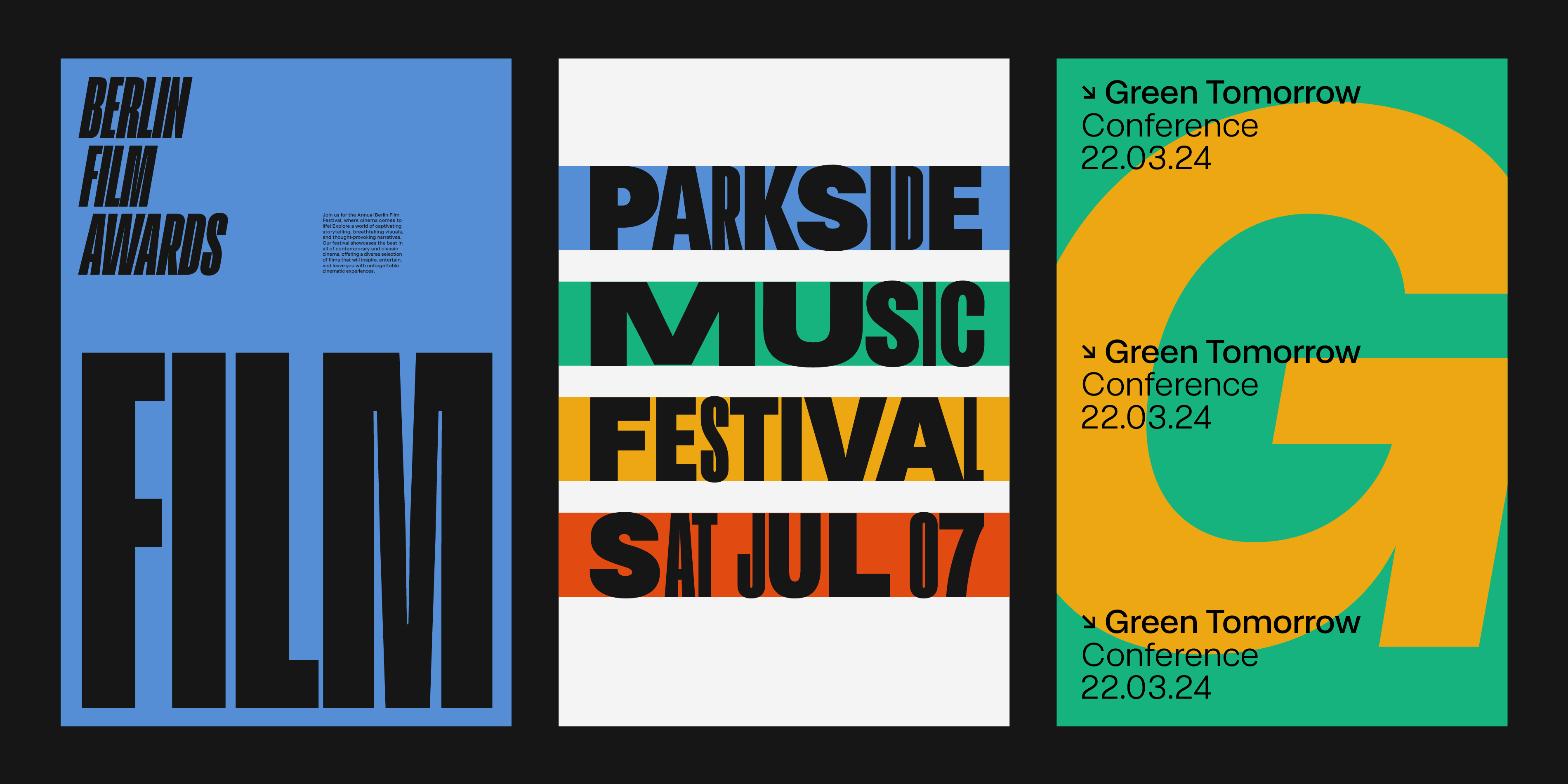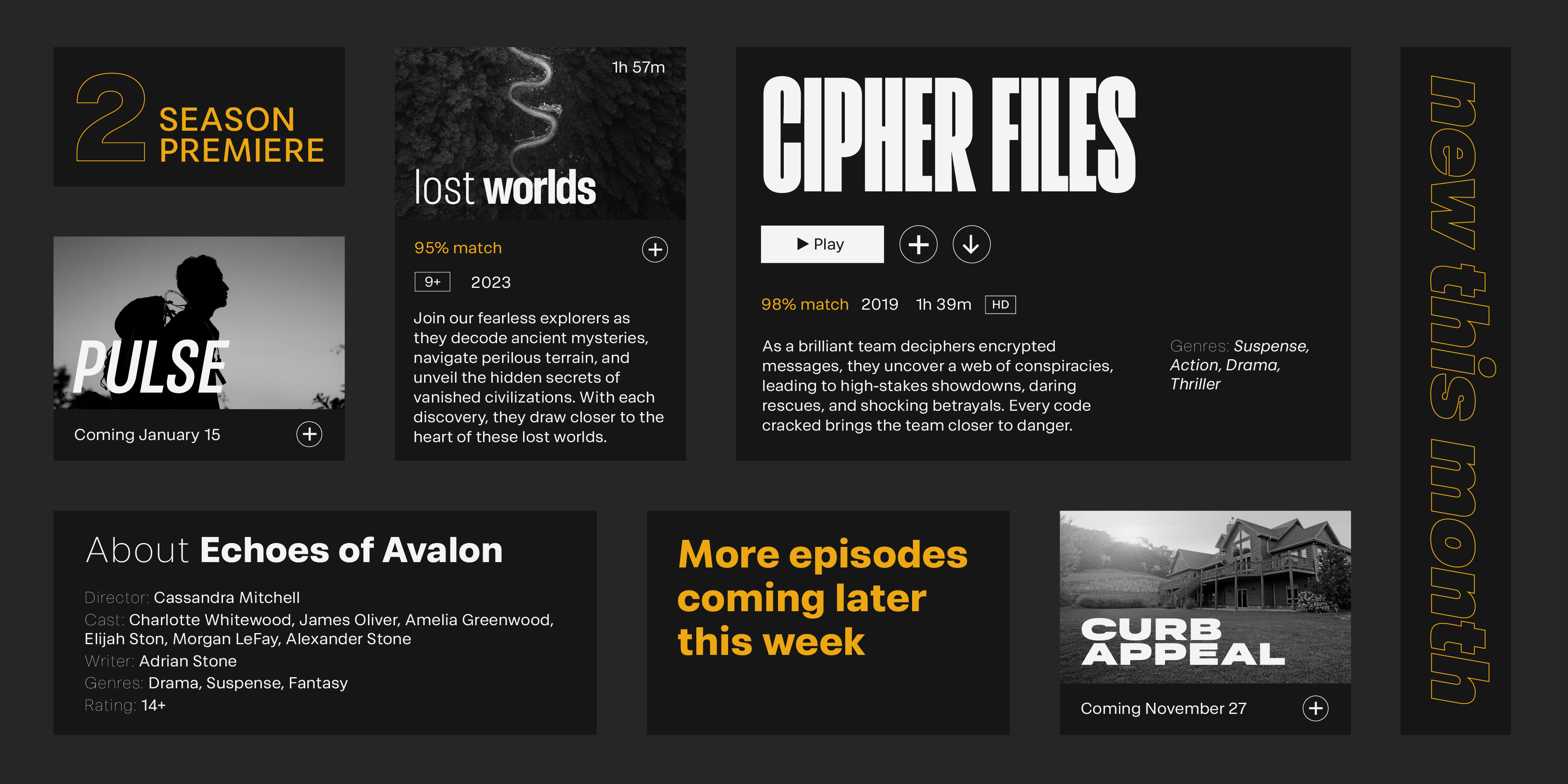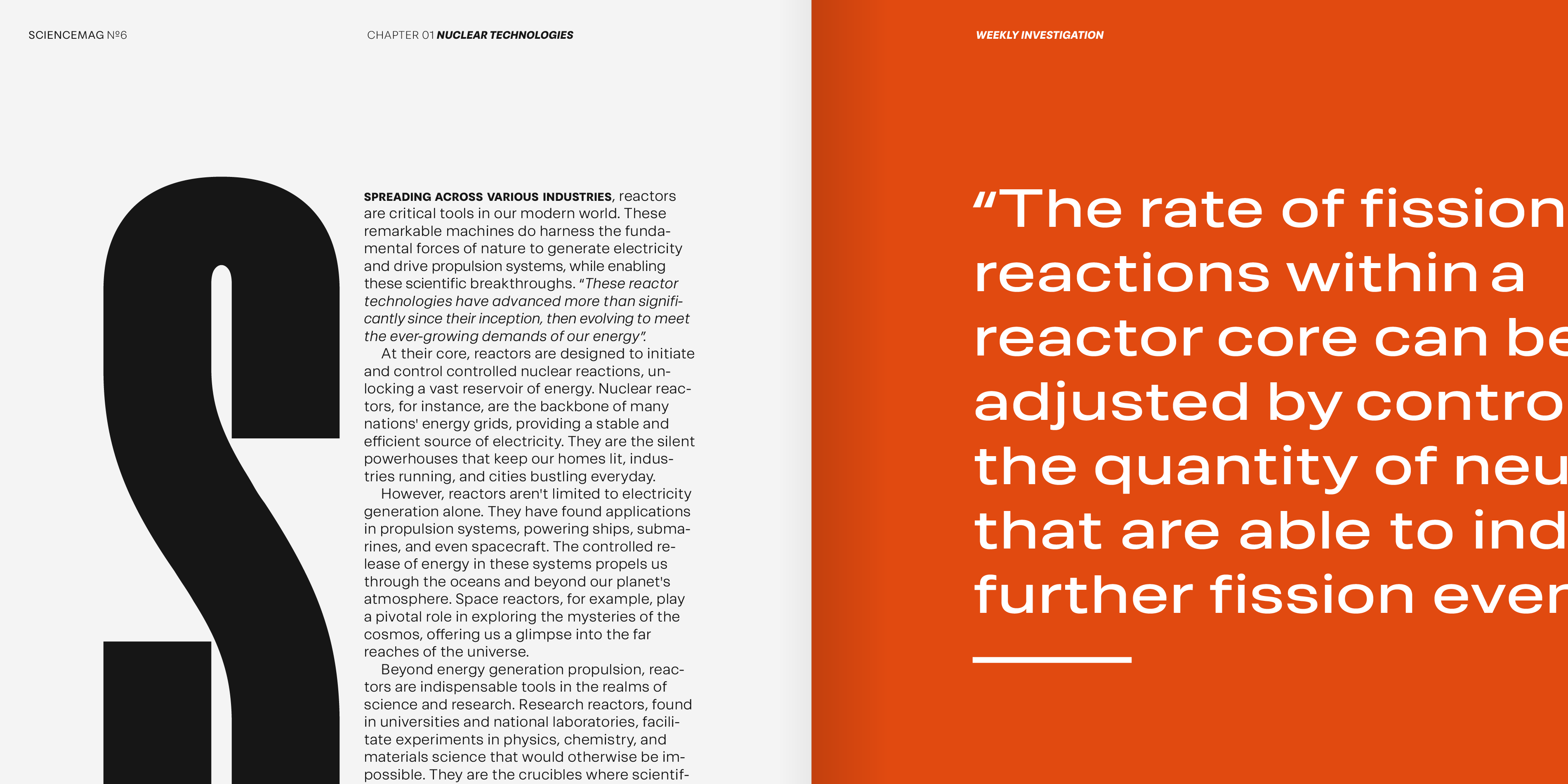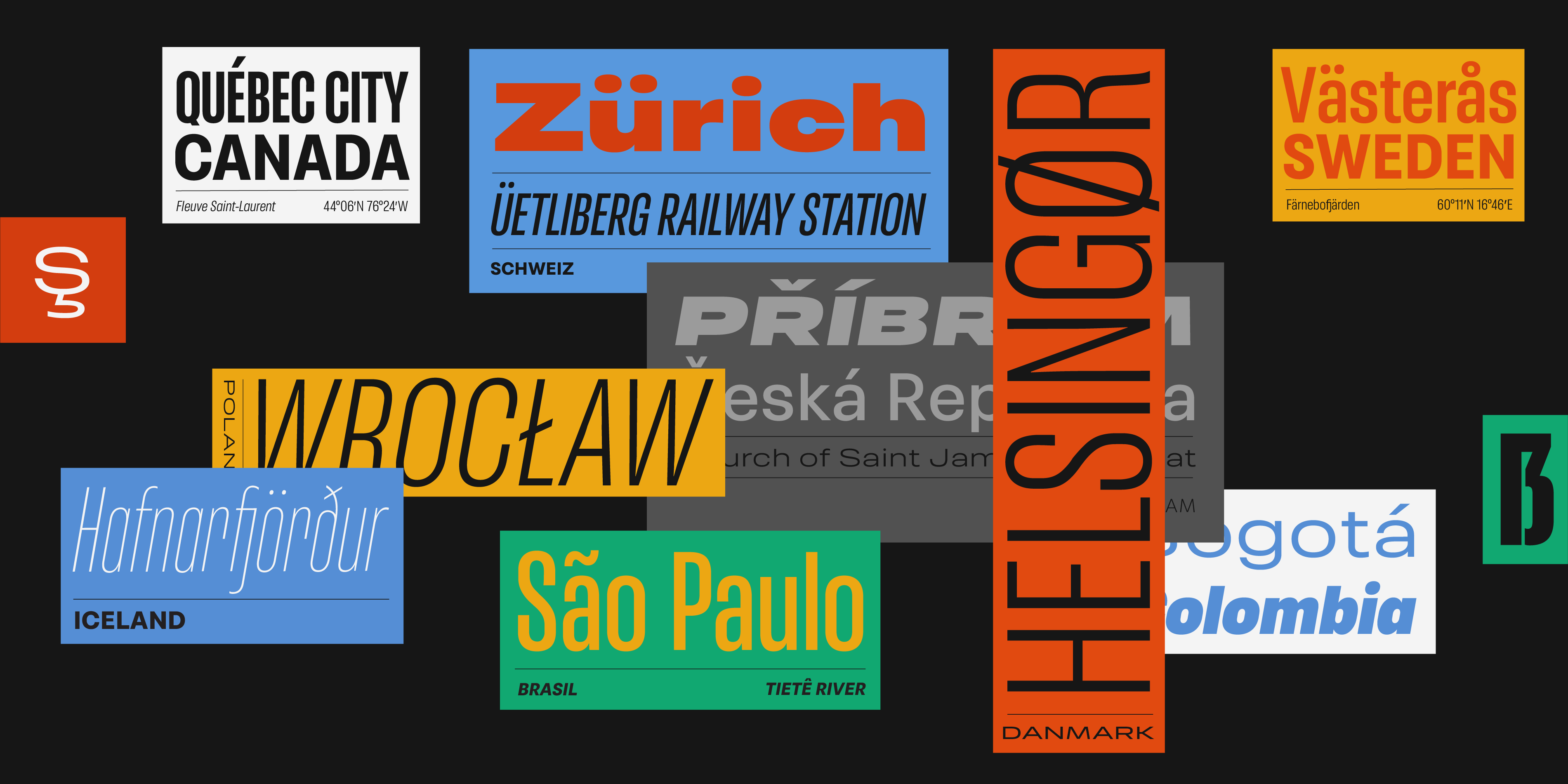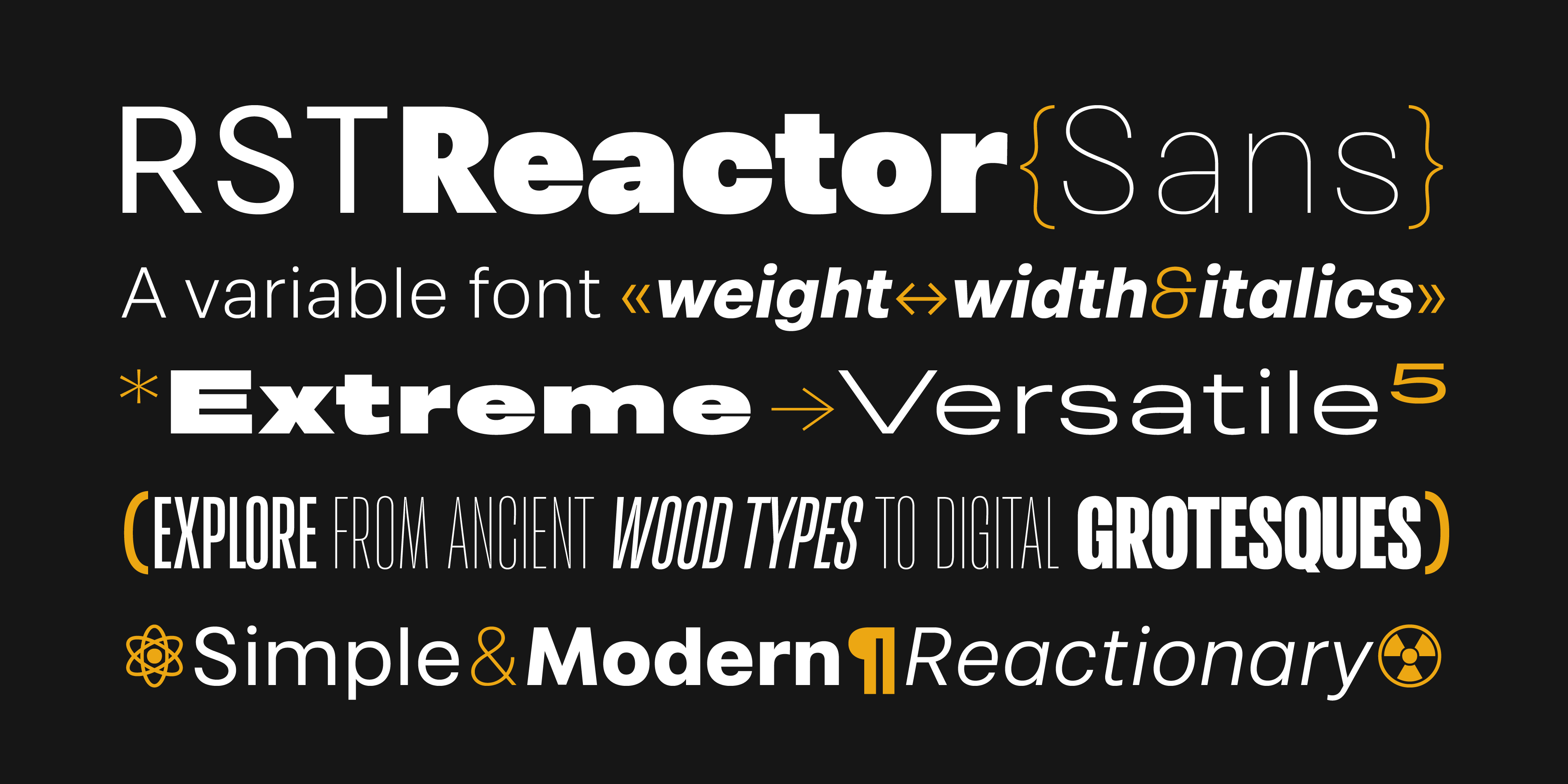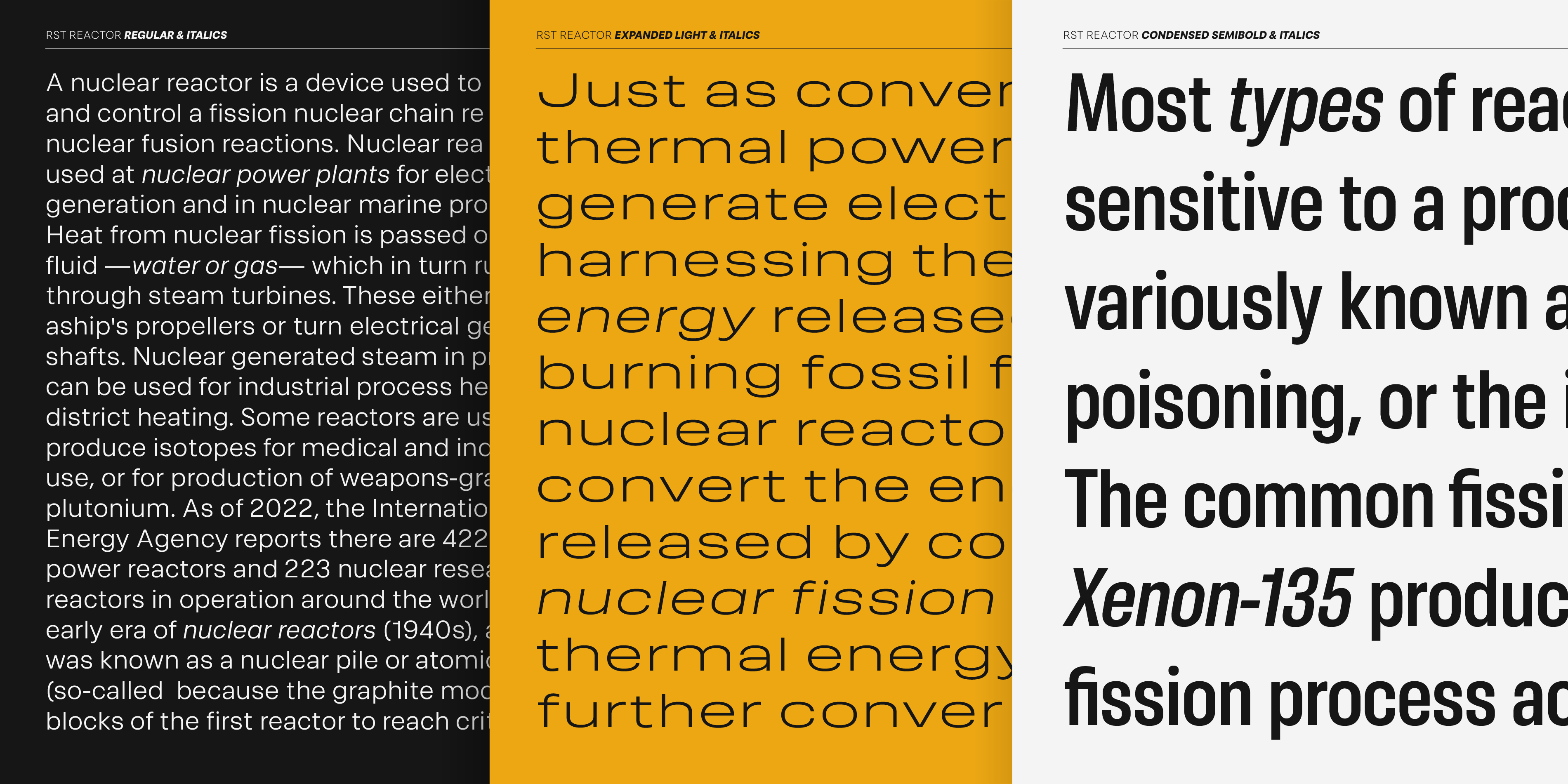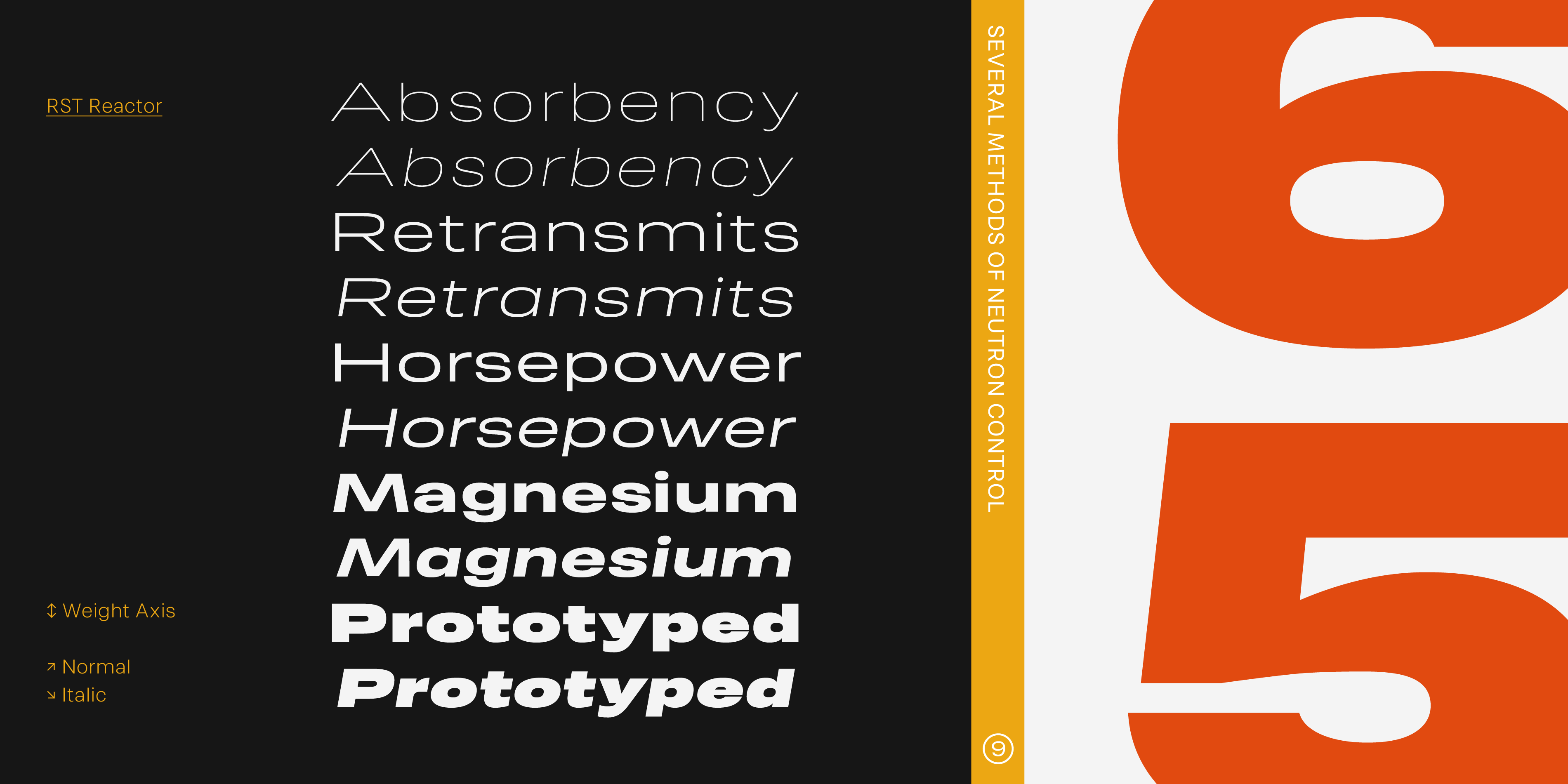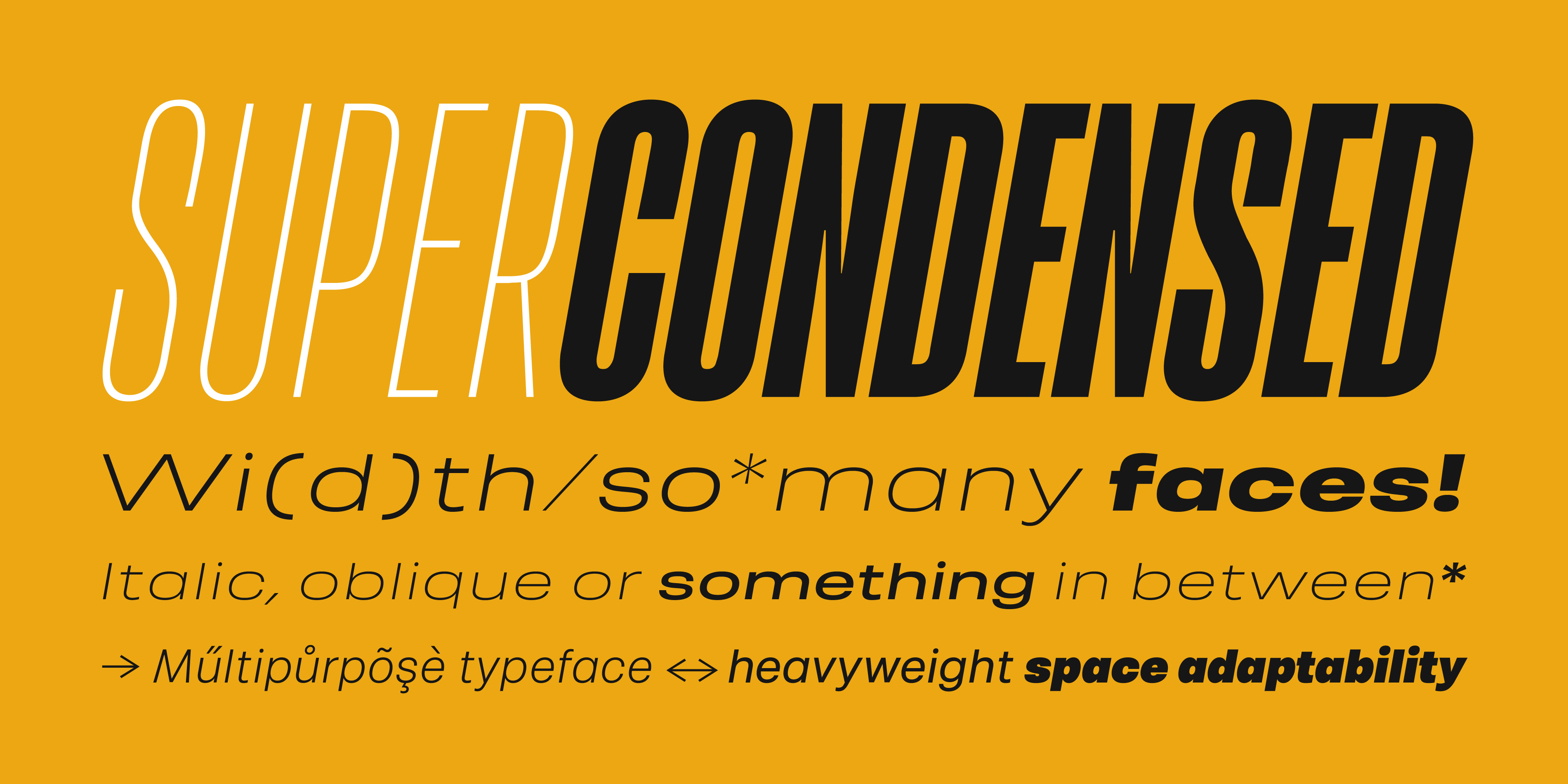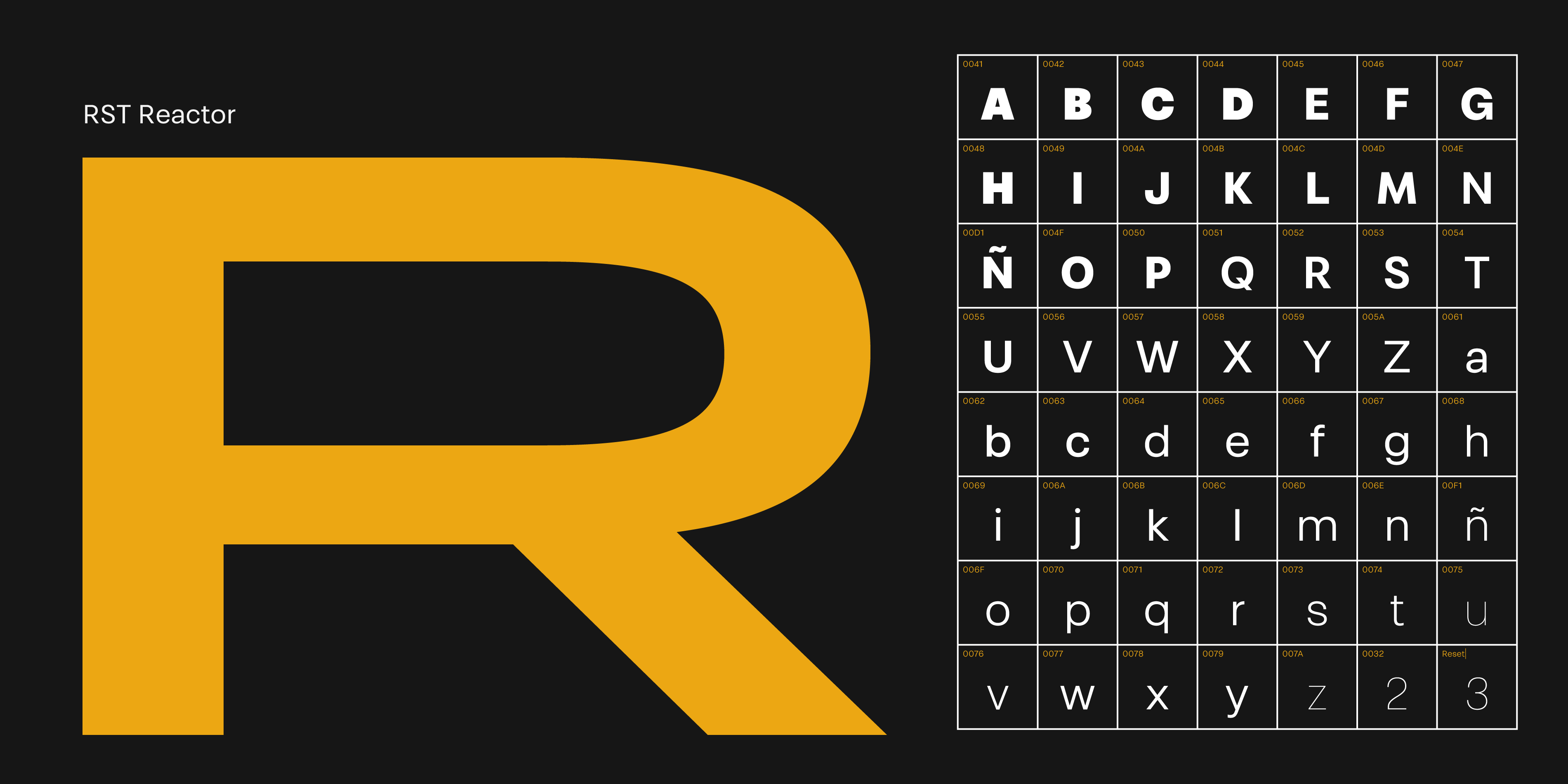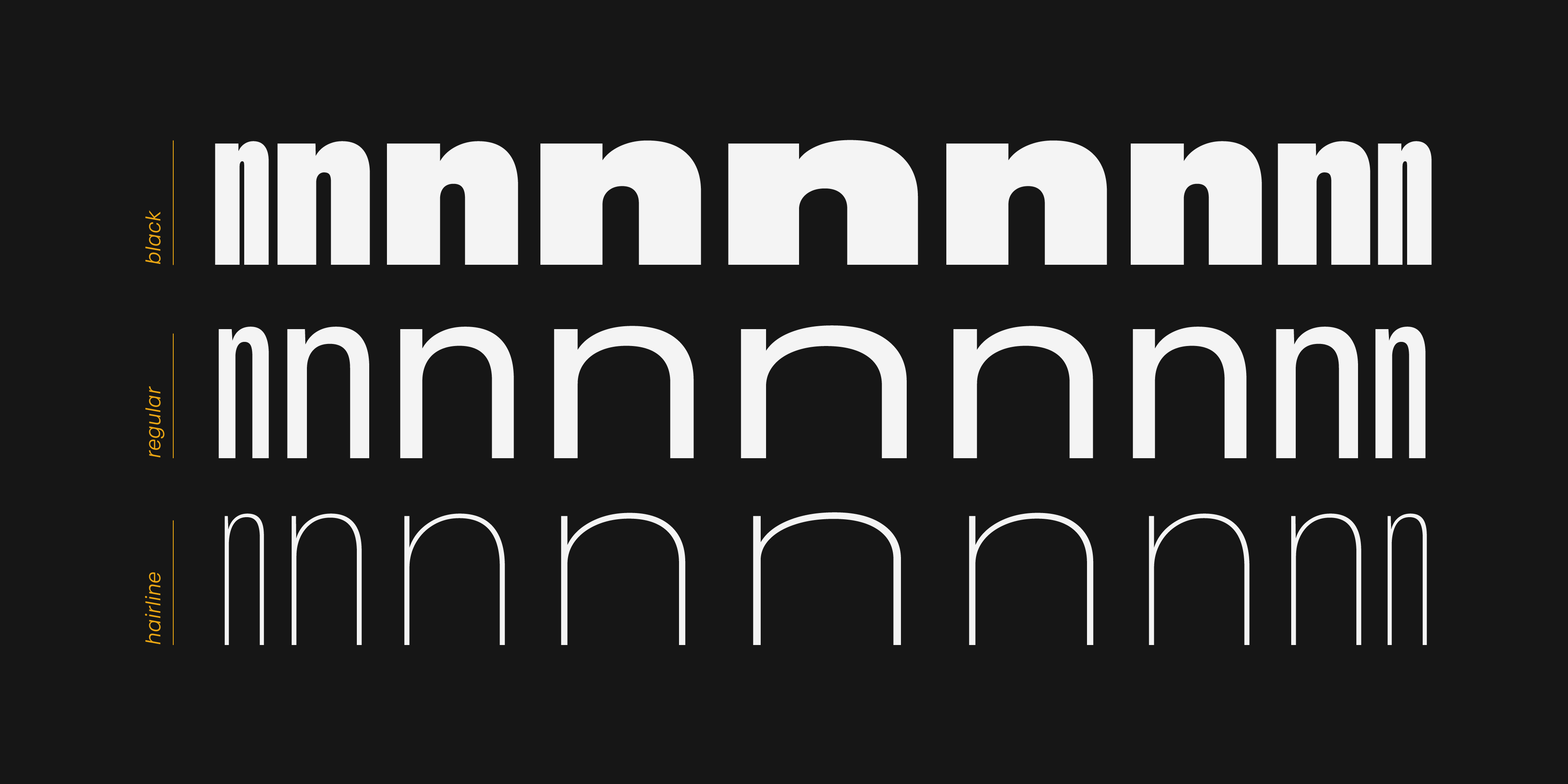
RST Reactor is a typeface that explores extremes and pushes them to their limit. Designed to coexist in all types of design pieces, it adapts to the environment without losing its essence. Reactor is a variable font with two axes: weight and width. Both axes take shapes to the limit to form a family of great versatility.
The condensed styles evoke 19th century woodtype, while the wider versions breathe modernity. In between, a classic grotesque type, discreet, modern, and simple. Regarding weight, Reactor gives a sensation of cleanliness and minimalism in its lighter weights. On the heavy end, it fills the spaces to compose strong messages with high visual impact. In the middle, it remains silent and neutral.
Although the extremes were designed specifically for use in large sizes, the versatility of its shapes allows the intermediate styles to be used in longer texts, prioritizing content over form. A variable font designed to provide multiple levels of hierarchy in complex design projects.